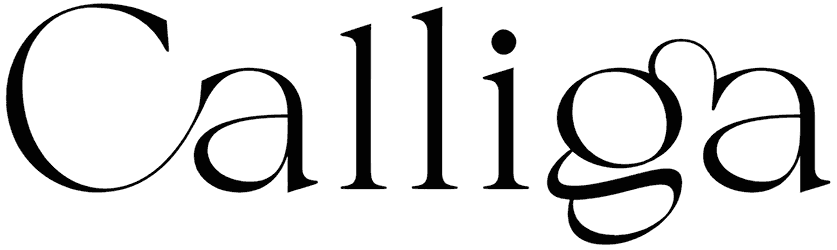
Calliga Font
When you look at the Calliga font, its unique design catches your eye at first glance. This serif font has thin letters, and its form is classy. You can use the Calliga font in various cases, such as magazine covers, social media posts, and postcards. The elegant design of the characters has made this font entertaining and reminiscent to the viewers.